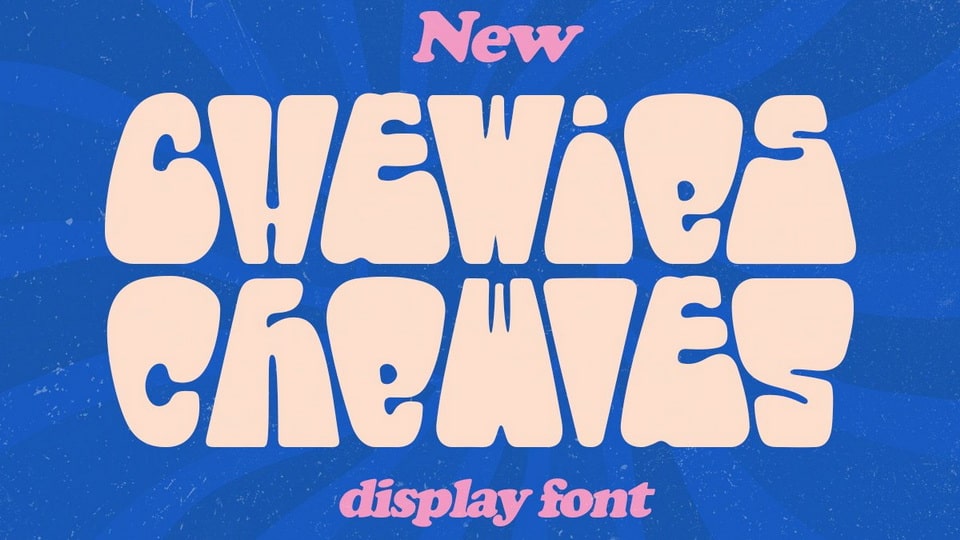
Download Chewies is a quirky bold font with unique letterform. Chewies font perfectly made to be applied especially in logo, branding, packaging, posters or any type of advertising purpose.